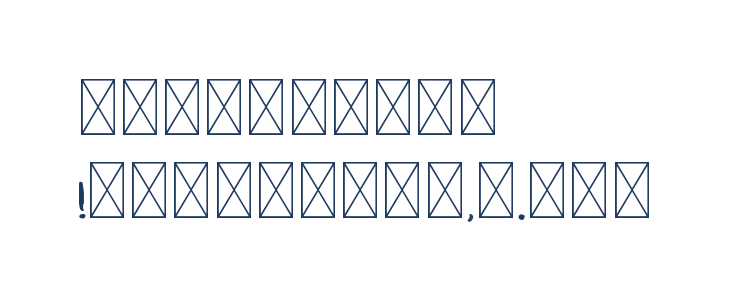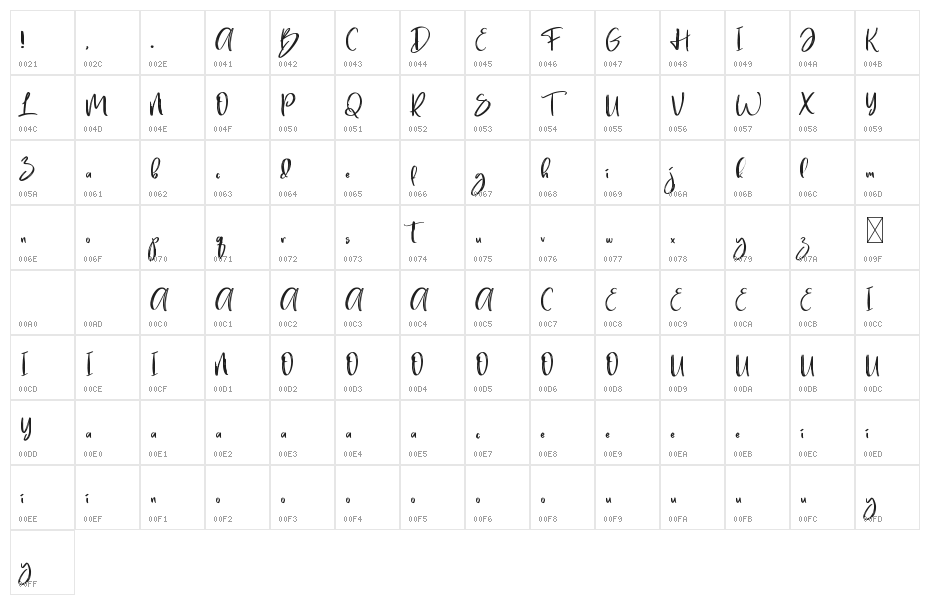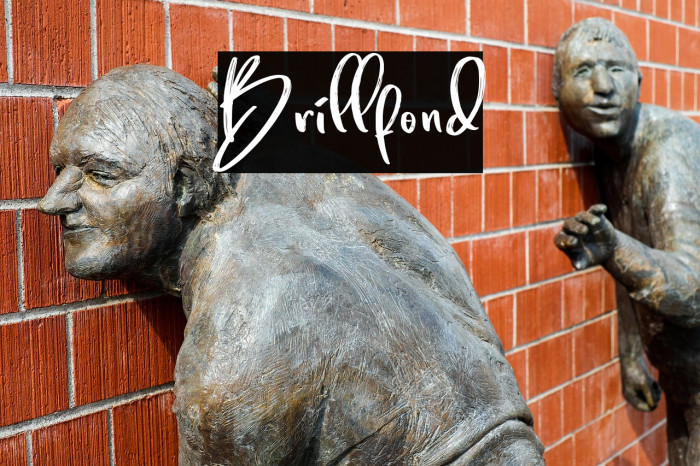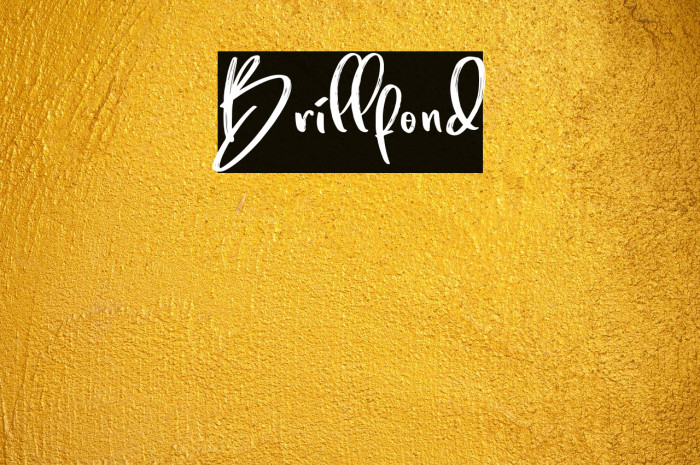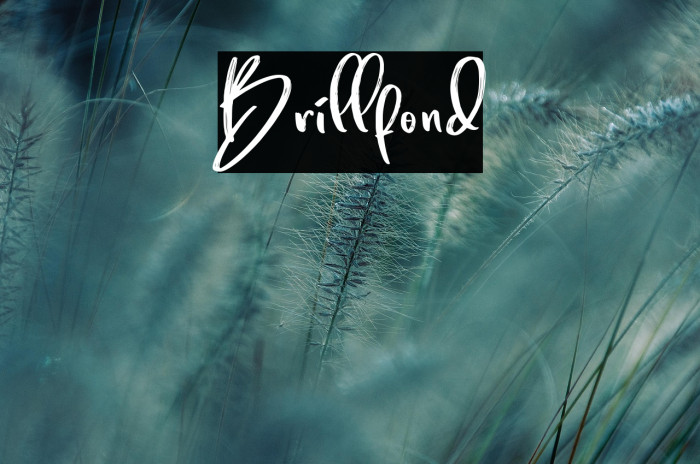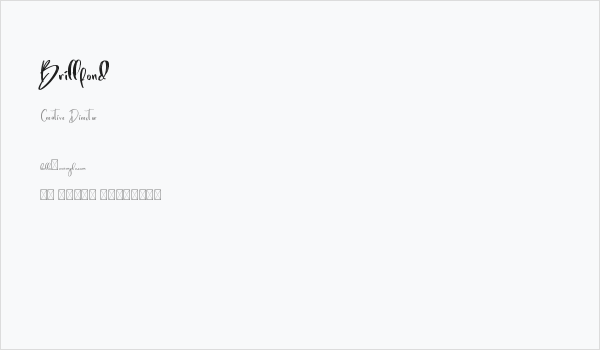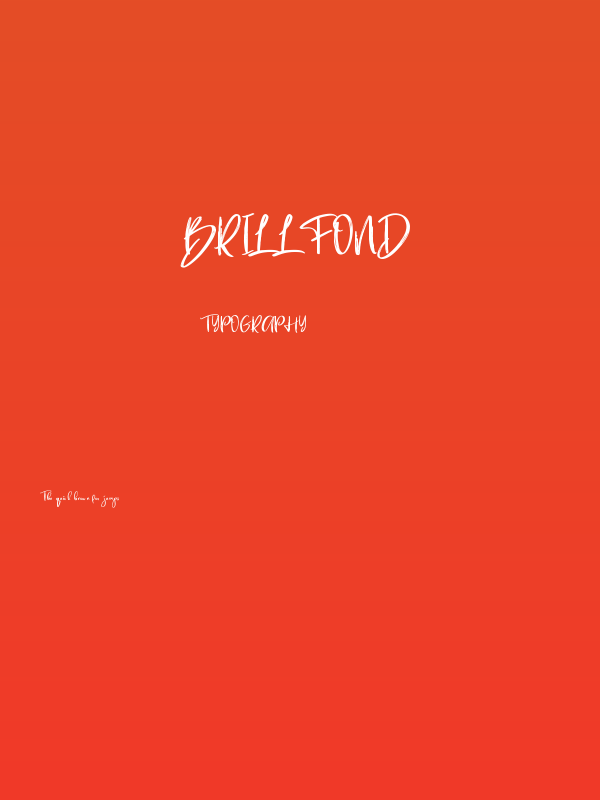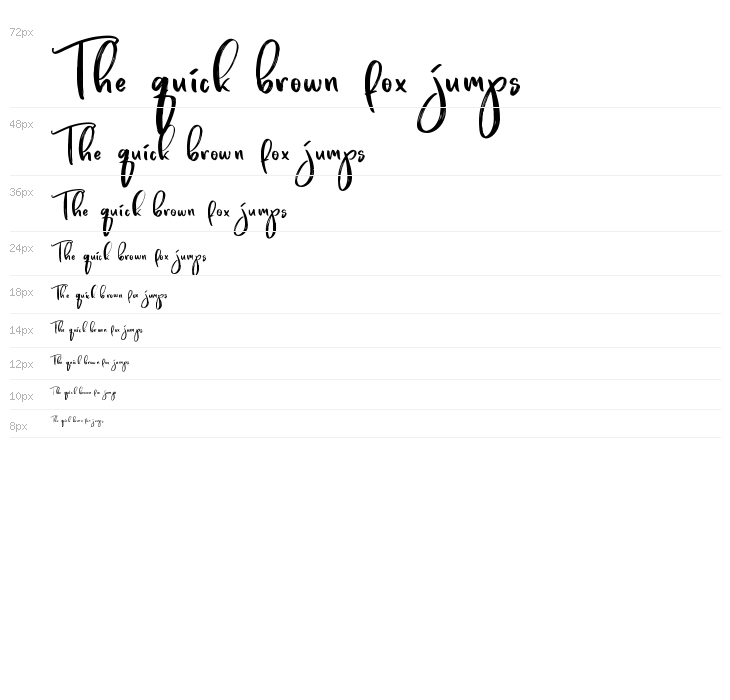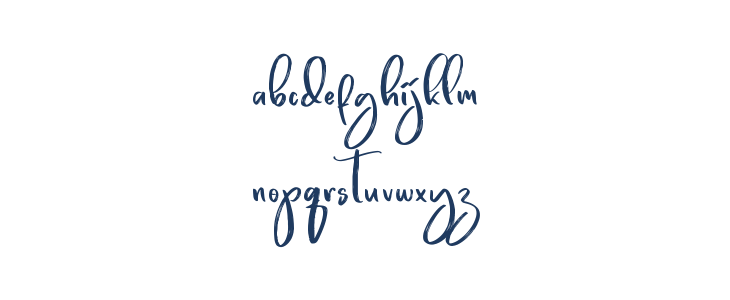
Brillfond Font
Brillfond Description
This font features a dynamic and expressive handwritten style, characterized by its fluid strokes and playful curves. The uppercase letters exhibit a bold presence with varying line thickness, while the lowercase letters maintain a consistent flow, enhancing readability. The numerals and special characters are crafted with the same artistic flair, making them stand out. The overall design is both modern and artistic, suitable for creative projects that require a personal touch. Its unique style makes it ideal for branding, invitations, and artistic displays.
| Overall Style | Modern, Artistic |
| Use Case | Logos, Invitations, Artistic displays |
| Proposed Projects | Ideal for branding, invitations, artistic displays, and creative projects. |